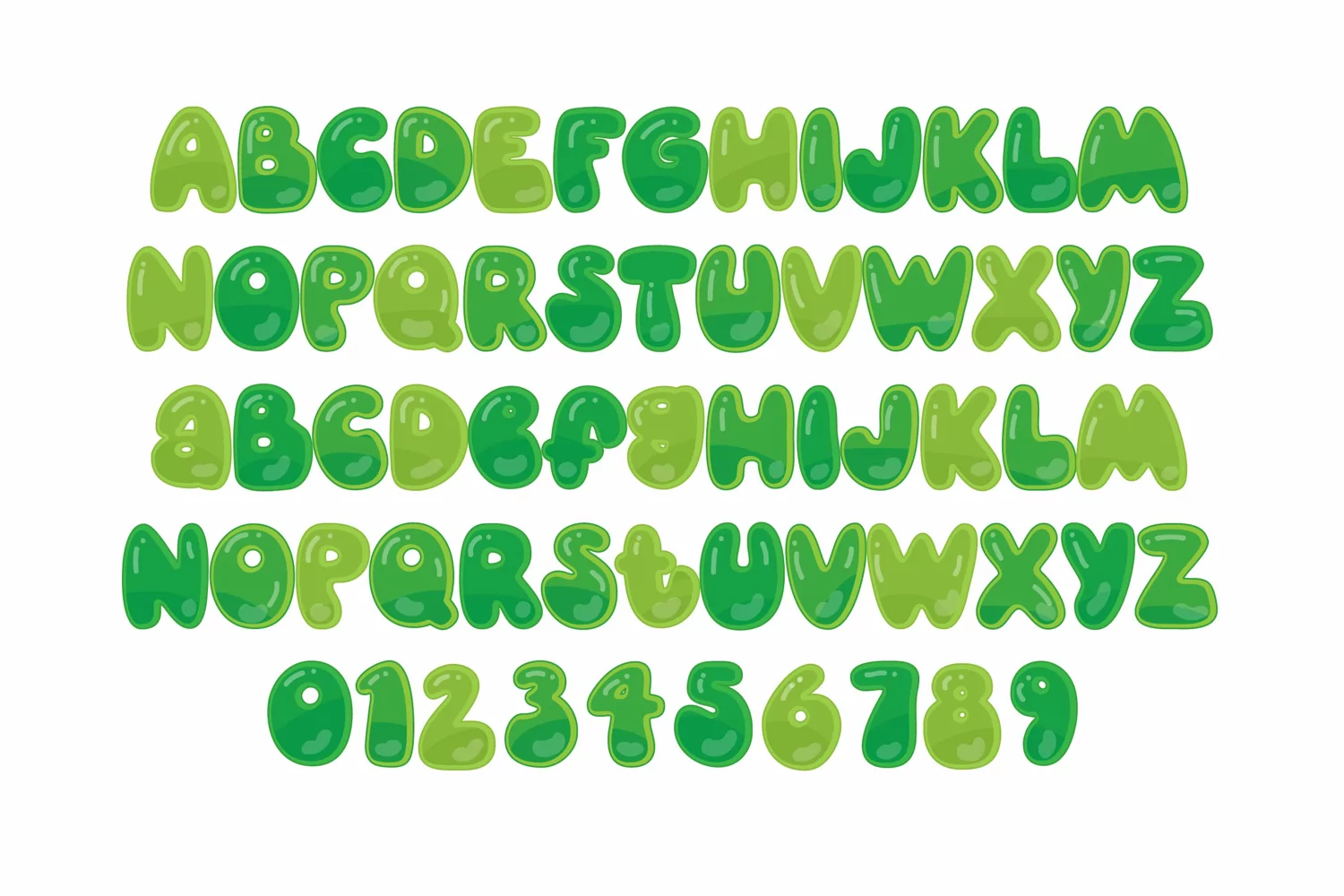
Lime Jello
This full-color font is a fun jelly-like font in a lime green color palette. There is an alt case of additional colors of each letter that you can access through your system or Silhouette's glyph map.